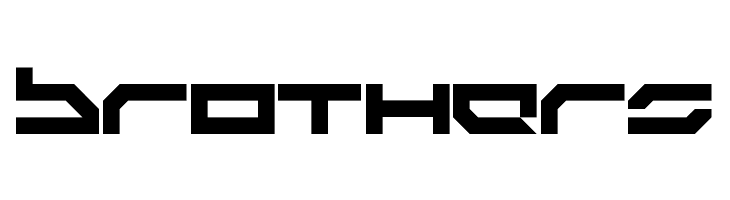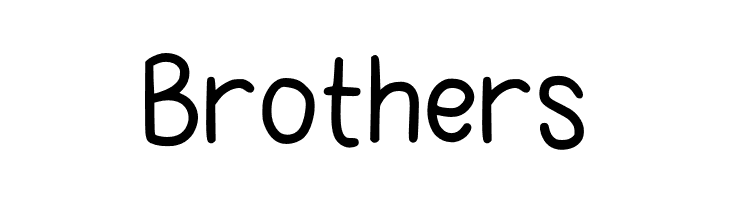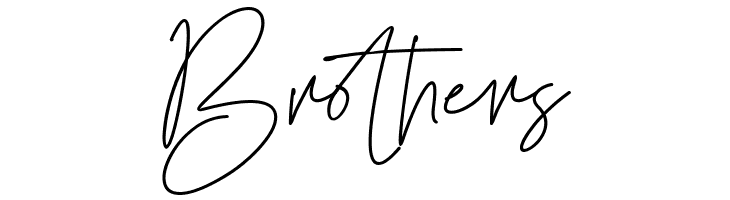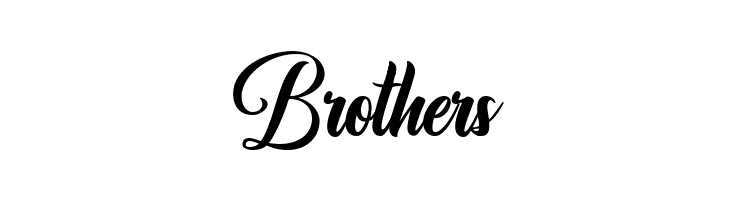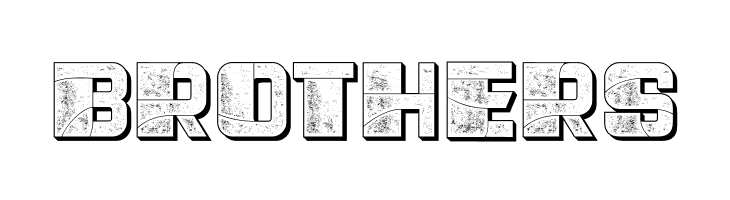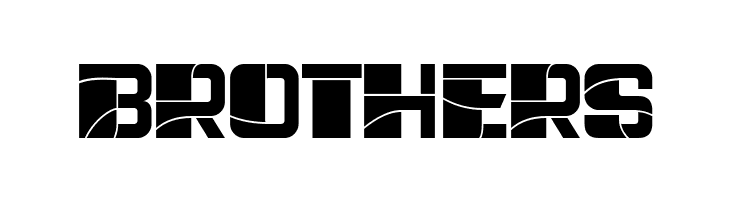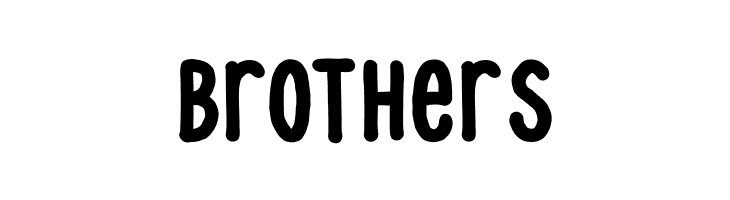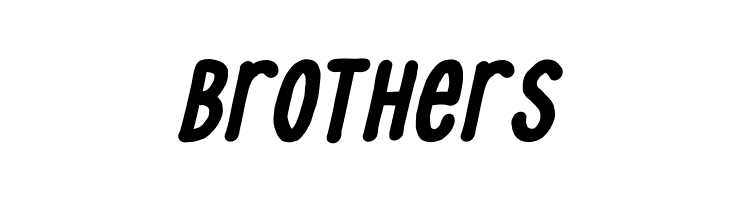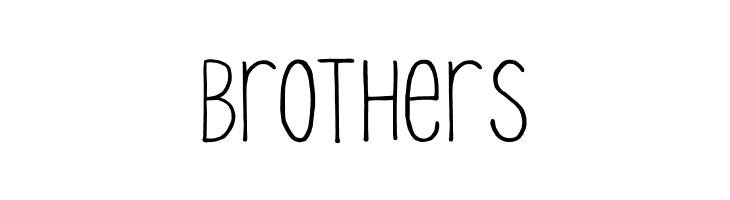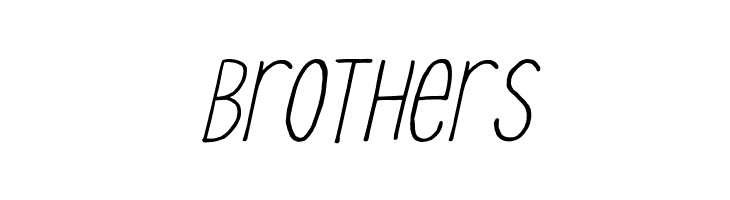
A bold, geometric font with a futuristic and tech-inspired design.
An artistic, irregular font with jagged edges and a hand-crafted appearance.
A dynamic, expressive handwritten font with fluid, elongated strokes.
A playful, rounded font with a hand-drawn, whimsical style.
A playful, handwritten font with rounded, smooth letterforms.
A bold, vintage decorative font with distressed textures and ornate details.
An elegant, flowing script font with graceful curves and cursive strokes.
A bold, distressed font with a vintage, industrial feel.
A casual, handwritten font with a flowing and dynamic style.
An ornate and decorative serif font with intricate details.
A playful, bold, hand-drawn font with rounded strokes and a whimsical touch.
A bold, playful font with rounded edges and a hand-drawn feel.
A bold, oblique font with rounded, dynamic characters.
An elegant script font with fluid, sweeping strokes and graceful curves.
A high-contrast serif font with elegant, refined strokes and sharp serifs.
A graceful and flowing script font with a natural handwriting style.
A flowing, elegant script font with a modern, handwritten style.
A playful, hand-drawn font with rounded edges and a friendly appearance.
A playful, hand-drawn font with rounded, friendly characters.
A playful, sketch-like font with overlapping strokes and a hand-drawn feel.
A bold, geometric stencil font with sharp angles and clean lines.
A bold, geometric stencil font with high contrast and decorative elements.
A playful, handwritten font with smooth curves and a casual style.
A playful, handwritten font with an informal and whimsical style.
An elegant, cursive script font with intricate loops and flourishes.
A bold, dynamic script font with a playful and energetic style.
A modern serif typeface with elegant, refined letterforms and balanced proportions.
A bold serif font with strong vertical lines and classic elegance.
A bold, geometric font with unique cutouts and a modern style.
A bold, distressed font with a rugged, industrial appearance.
A bold, distressed 3D font with a rugged, industrial aesthetic.
A playful handwritten font with tall, narrow letterforms and a light, airy feel.
A light, oblique font with a modern and elegant style.